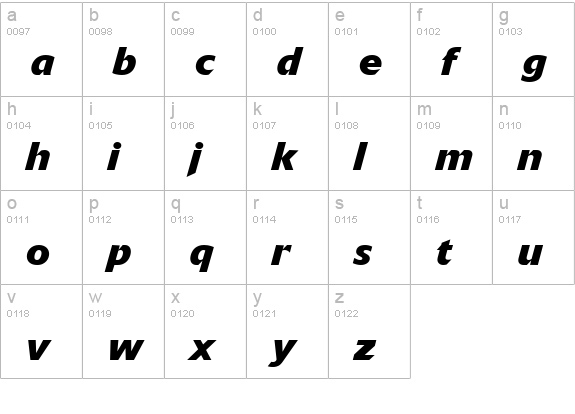
Delta Jaeger Bold Italic is a strong, high-contrast, italic variant in the Delta typeface family \xE2\x80\x94 well suited to headlines, attention-grabbing titles, and strong calls-to-action.
Delta Jaeger Bold Italic is a striking and dynamic font that exudes confidence and modernity. With its bold weight and italic styling, this typeface is perfect for making a bold statement in any design project. The sharp angles and clean lines of Delta Jaeger Bold Italic give it a sleek and contemporary feel, making it ideal for headlines, titles, and branding materials. One of the best things about Delta Jaeger Bold Italic is that it is completely free to download. You can easily access this powerful font at FontsMarket.com, where you can add it to your collection without any cost. Whether you're working on a print design, web project, or any other creative endeavor, Delta Jaeger Bold Italic is sure to make a lasting impression with its bold and stylish appearance. Download it today and elevate your designs with this versatile and eye-catching font.